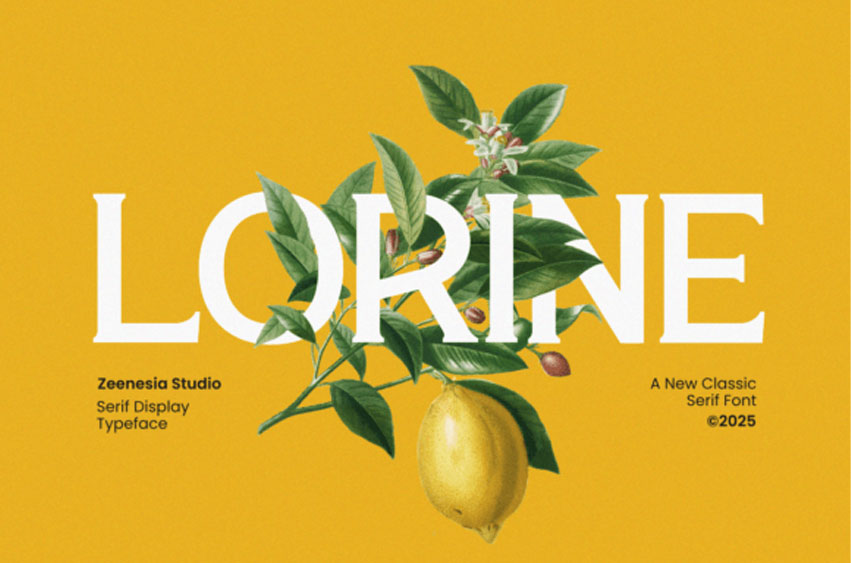
Lorine Font is a refined classic serif display typeface that blends timeless elegance with a fresh contemporary feel.
Designed with graceful proportions, sharp yet subtle serifs, and balanced contrast, Lorine delivers a sophisticated visual presence that feels both luxurious and approachable.